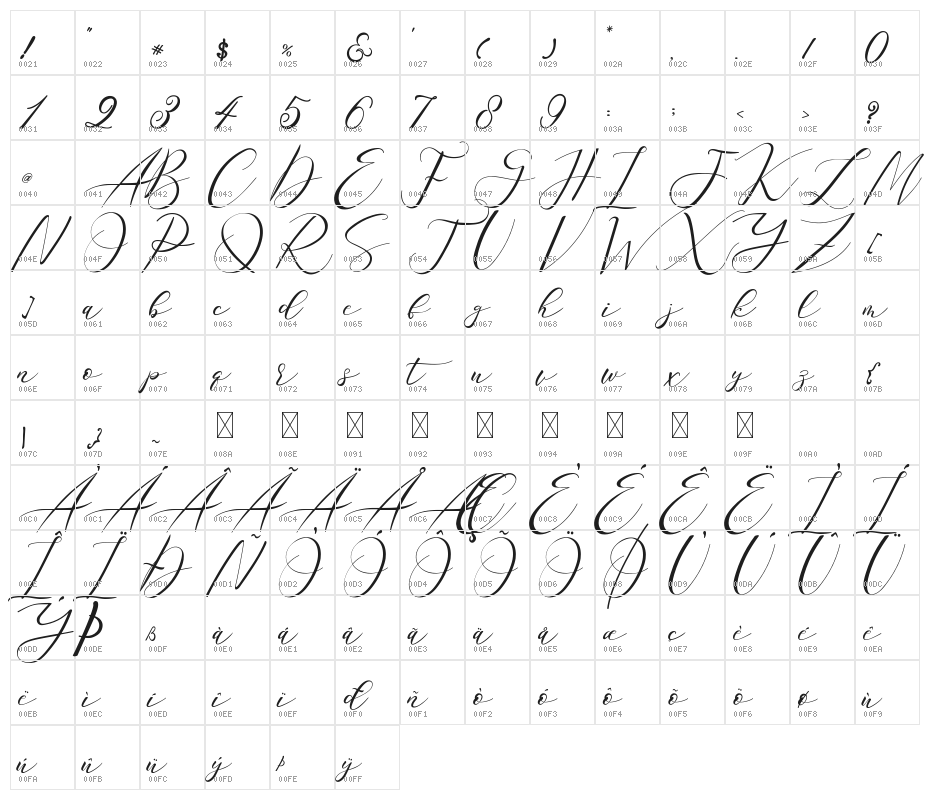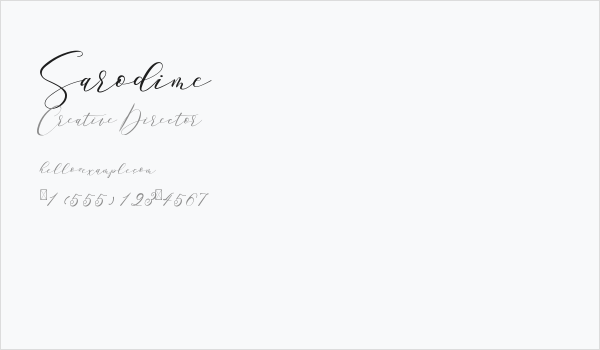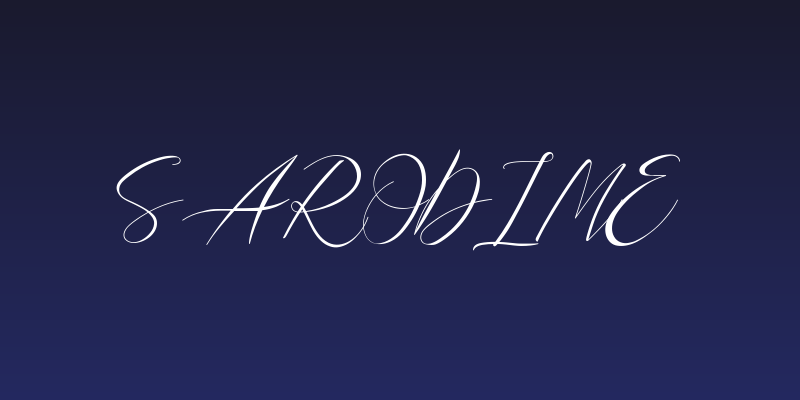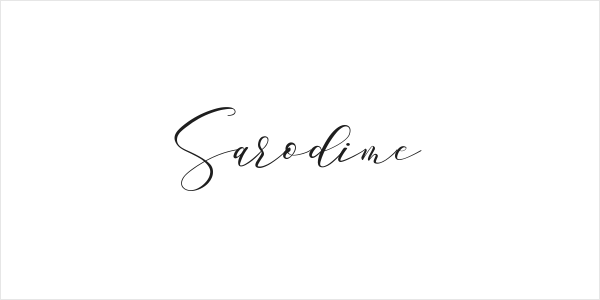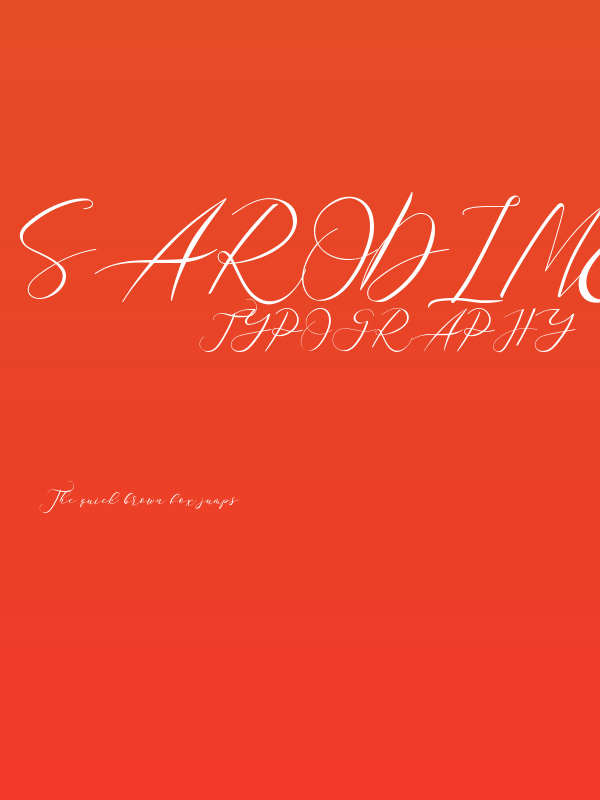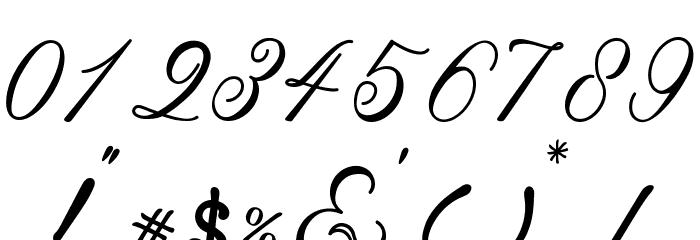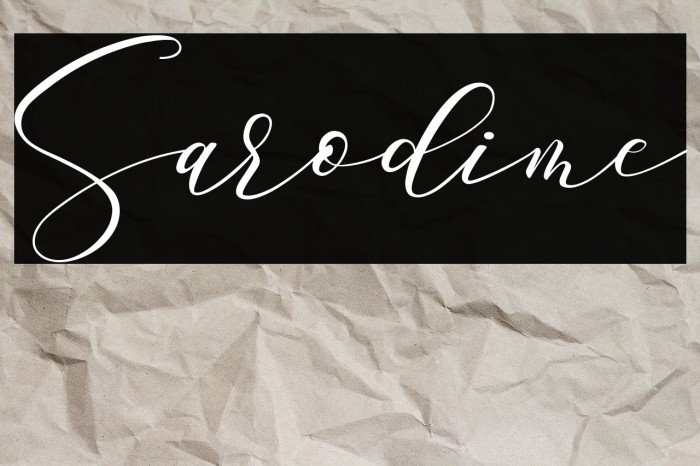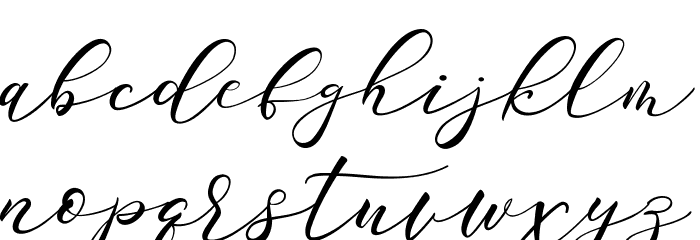
Sarodime Font
Sarodime Description
This elegant script font features a flowing, cursive style with high contrast between thick and thin strokes. The uppercase letters exhibit graceful loops and swashes, adding a touch of sophistication and flair. The lowercase letters maintain a consistent flow, with smooth connections between characters, enhancing readability while preserving an artistic touch. The numerals are designed with a similar elegance, featuring curved lines and a balanced structure. Special characters are crafted with the same attention to detail, ensuring a cohesive look across all glyphs. This font is ideal for projects that require a touch of elegance and style, such as wedding invitations, branding, and high-end product packaging.
| Overall Style | Elegant |
| Use Case | Logos, Invitations, Branding |
| Proposed Projects | Wedding invitations, luxury branding, elegant product packaging, and artistic posters. |